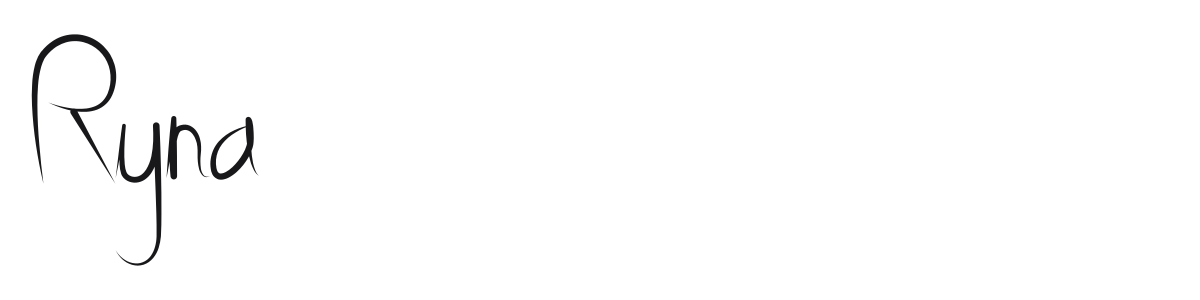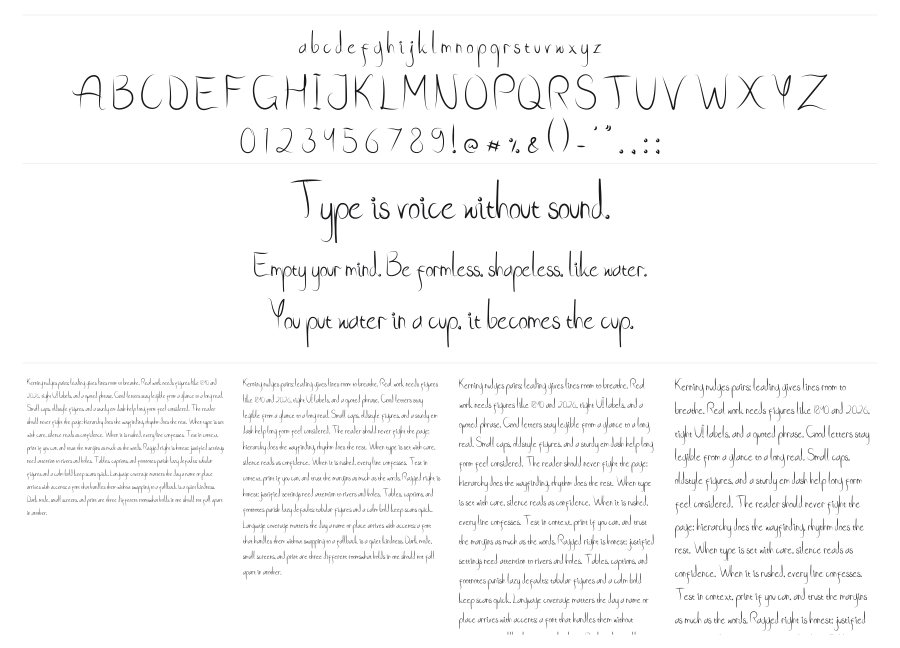
Ryna
Ryna is a casual handwritten script with thin, free-flowing strokes that feel like ink scrawled on paper. The irregular rhythm and natural inconsistencies give it an authentic, personal quality that polished scripts often lack. It works best at large sizes where that looseness reads as charm.